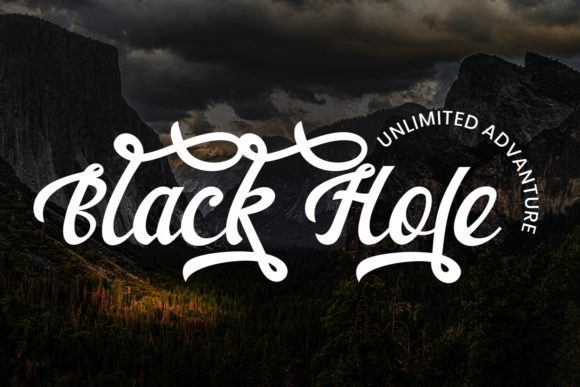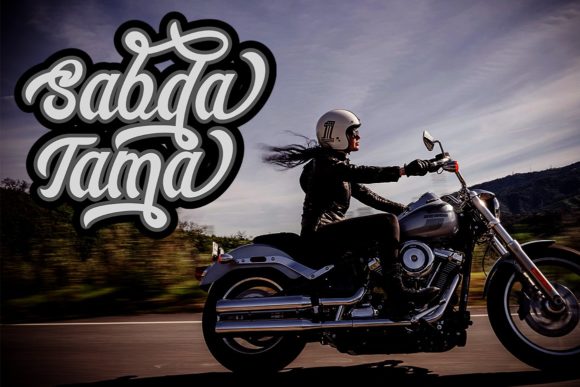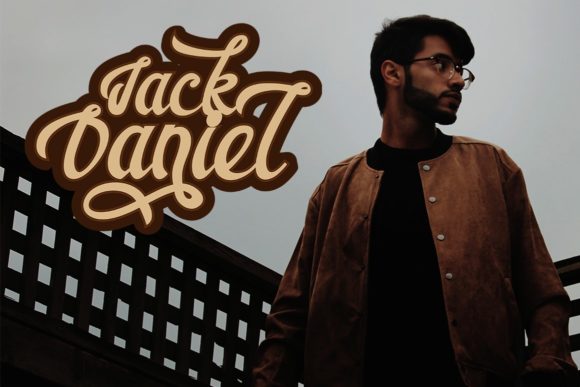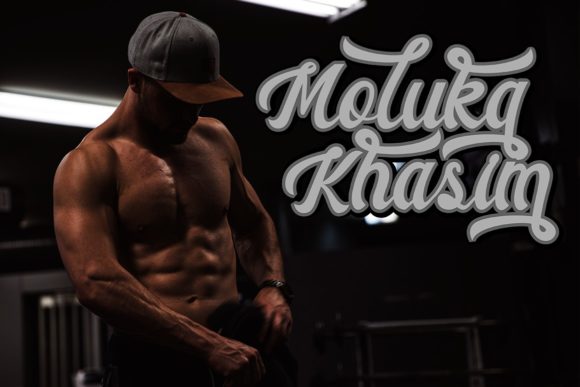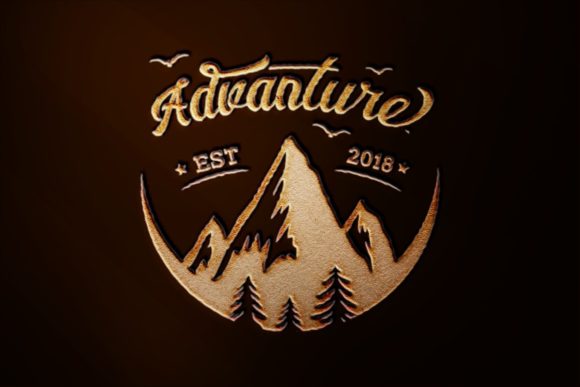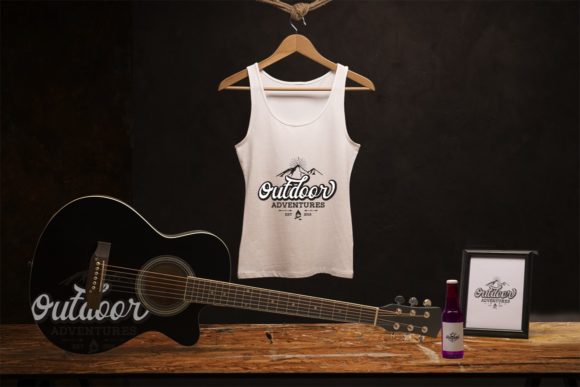
The Magic of Garland Font: Elevate Your Designs with Elegance
I’ll never forget the time I was working on a project for a client who wanted a font that exuded elegance and sophistication. I had spent hours scouring the internet, trying out different fonts, but nothing seemed quite right. That was until I stumbled upon the beautiful Garland Font. Its flowing, handwritten style and elegant touch instantly captivated me, and I knew I had found the perfect fit. In this article, I’ll share my love for Garland Font, its features, and how to make the most of it in your designs.
An Honest Review of Garland Font
- ✨ Elegant and sophisticated design that’s perfect for a variety of projects
- 💫 Timeless style that works well for both digital and print designs
- 🎨 Highly versatile and can be used for a range of creative projects
While Garland Font is an amazing font, there are a few things to keep in mind:
- 🤔 Some users may find the font a bit too ornate for certain projects
The Backstory of Garland Font
While the origins of Garland Font are unclear, it’s easy to imagine that it was created by a designer who wanted to evoke a sense of elegance and sophistication. Perhaps they were inspired by traditional calligraphy or beautiful handwriting. Whatever the inspiration, the result is a stunning font that’s perfect for a range of creative projects.
Q: What is PUA encoding, and how does it benefit me?
A: PUA (Private Use Area) encoding allows you to access a wide range of glyphs and swashes, making it easier to create unique and creative designs.
Q: Is Garland Font suitable for digital and print designs?
A: Absolutely! Garland Font’s timeless style works well for both digital and print designs, making it a versatile addition to your font library.
Q: Can I use Garland Font in languages other than English?
A: While Garland Font may not support every language, it’s designed to work with a range of languages that use the Latin alphabet.